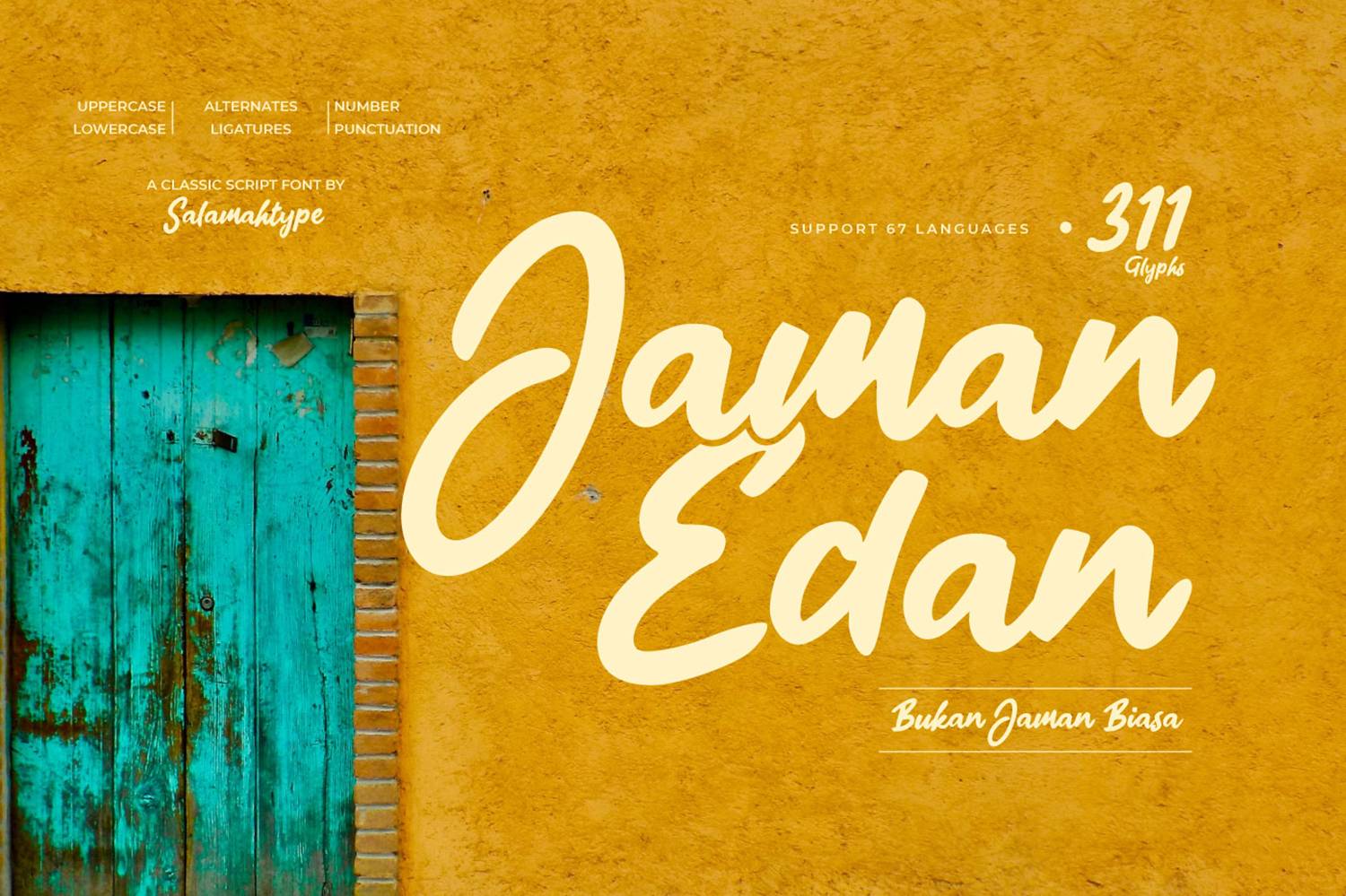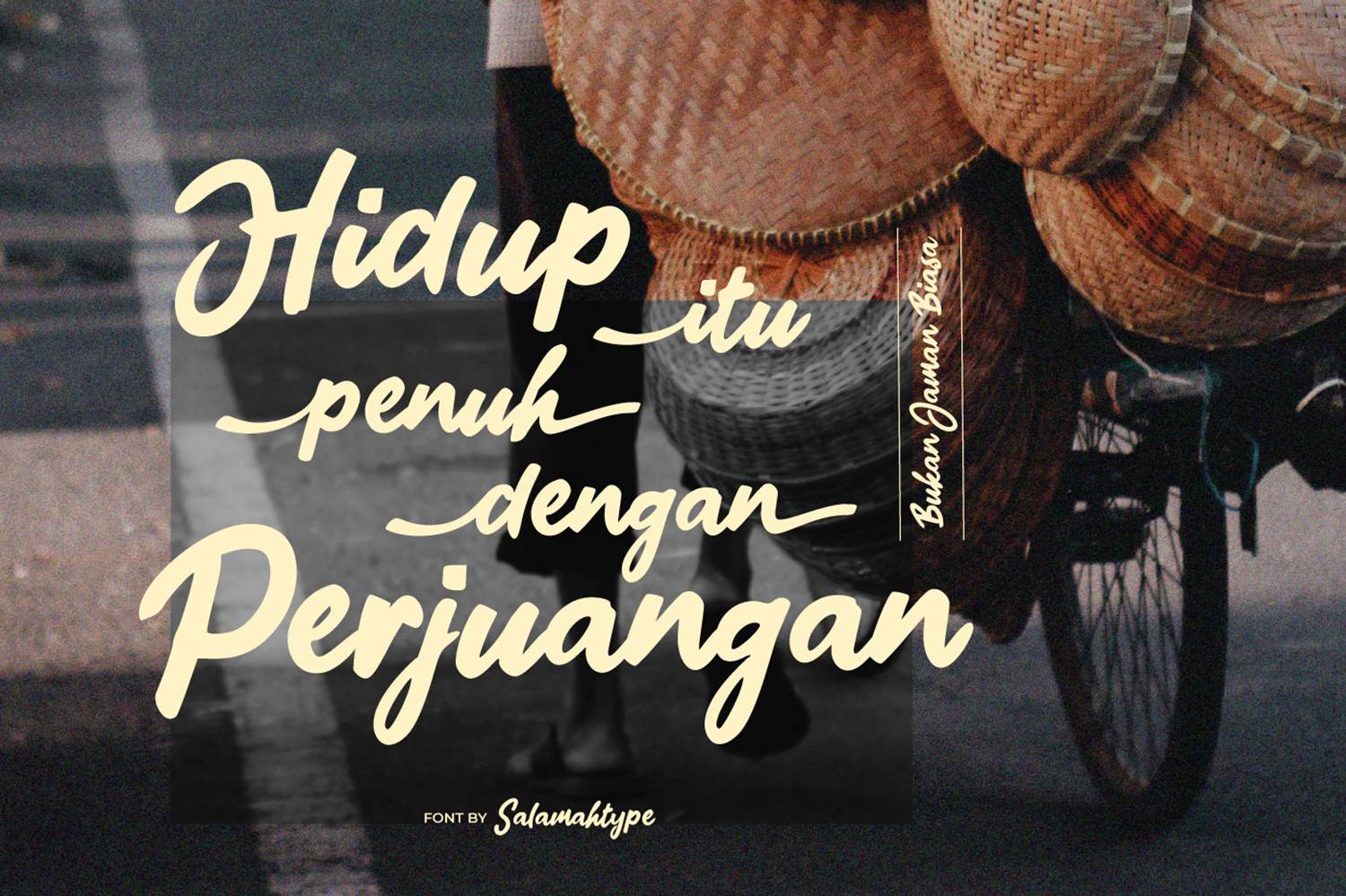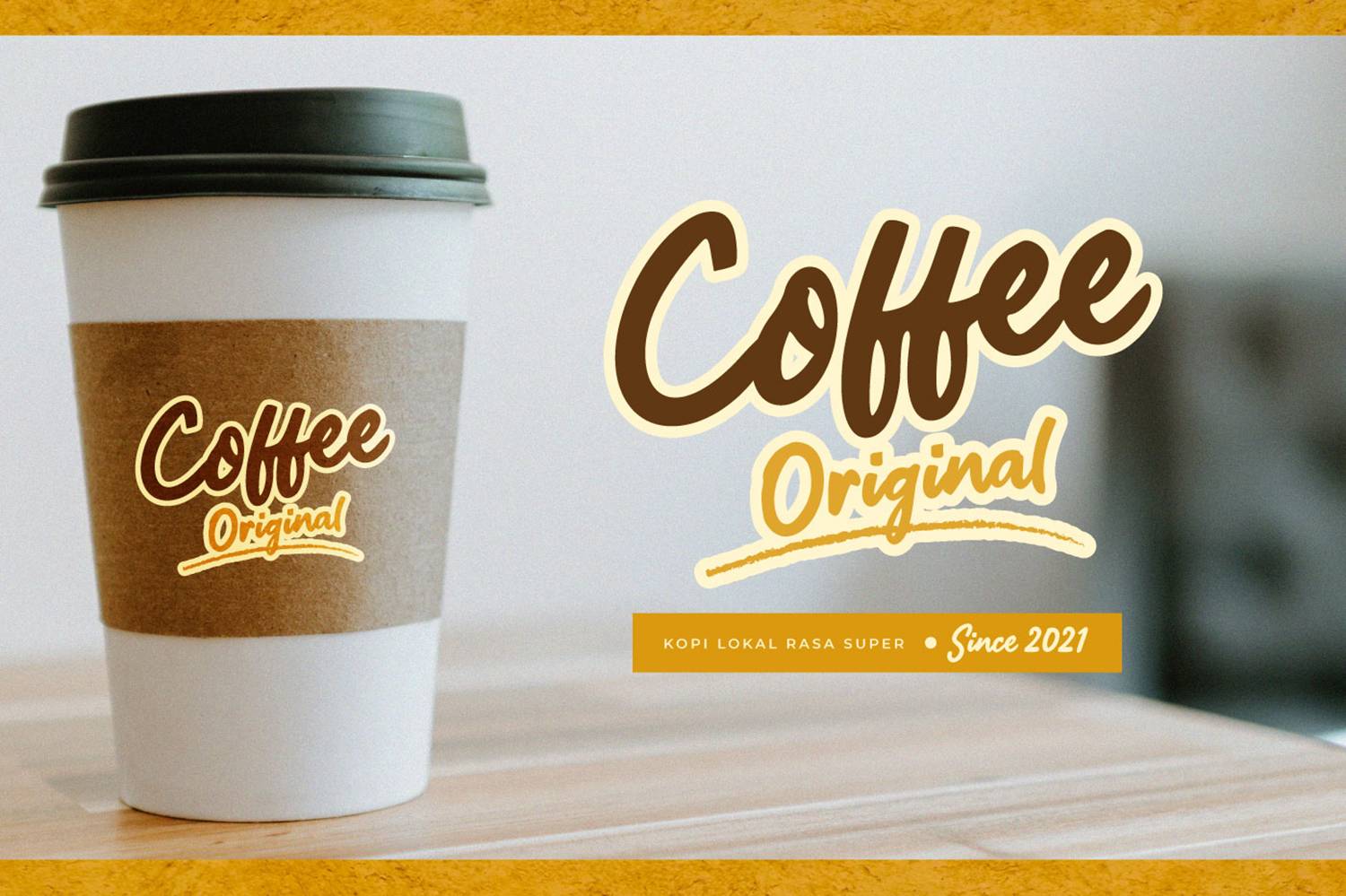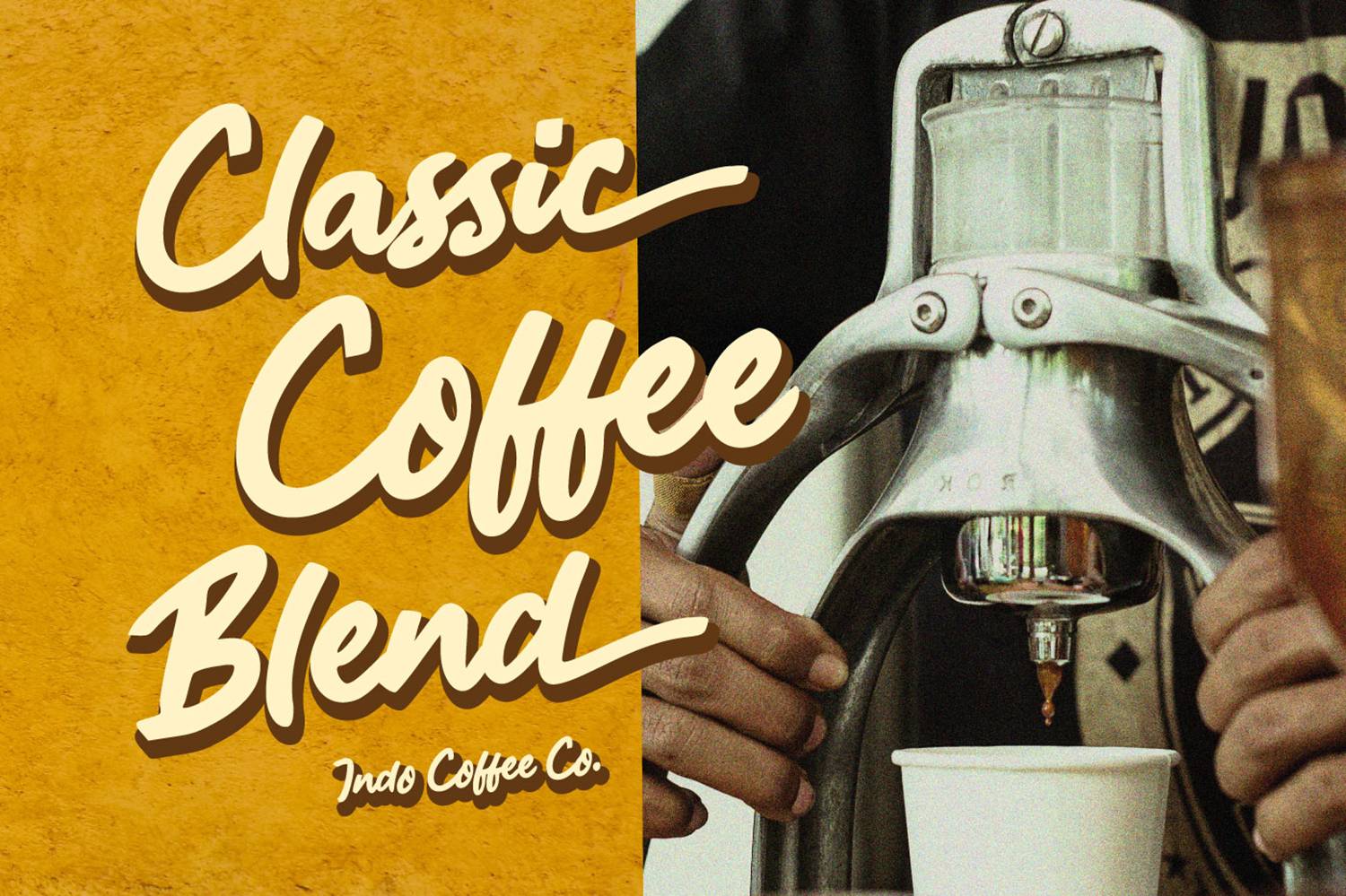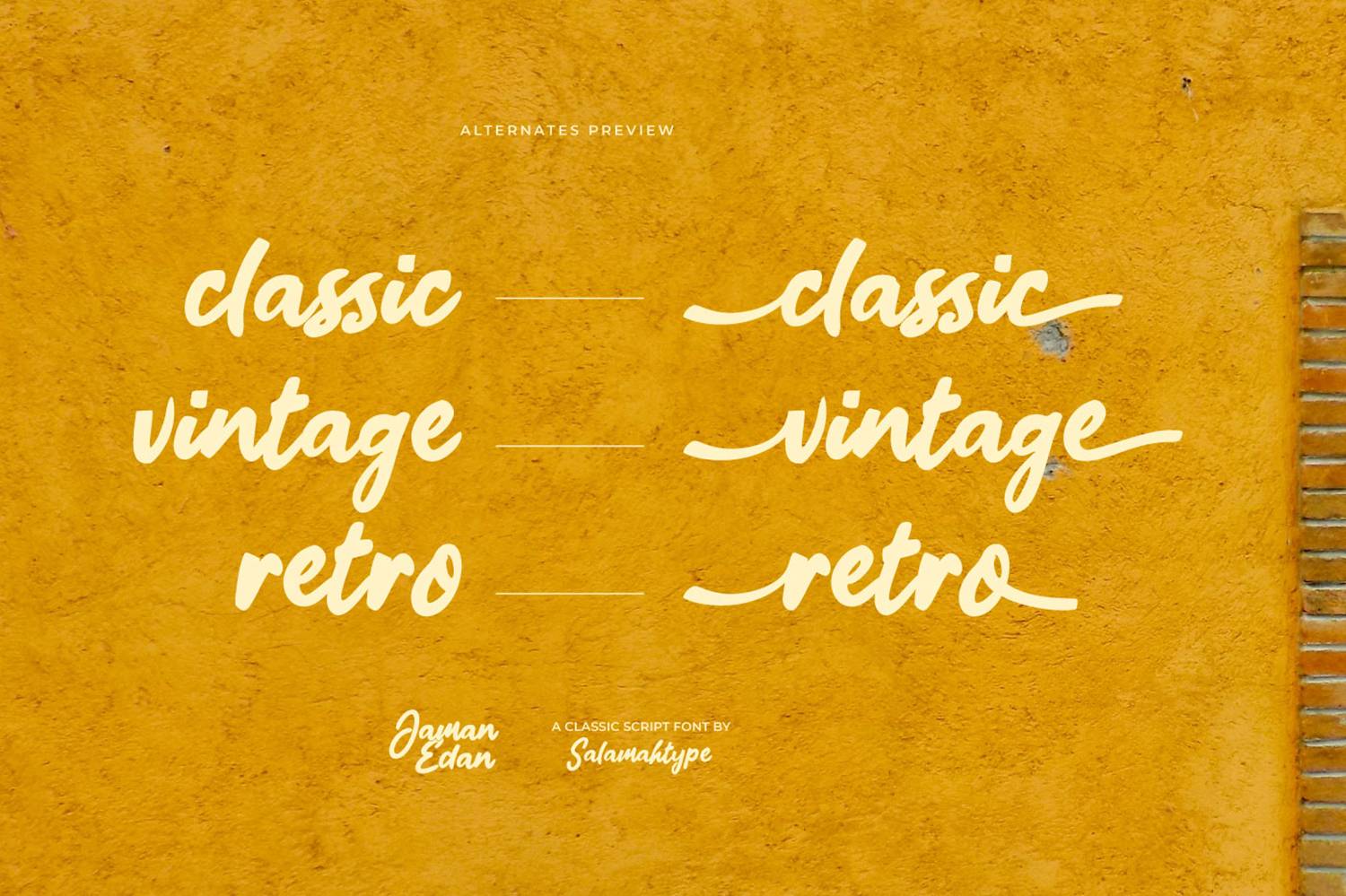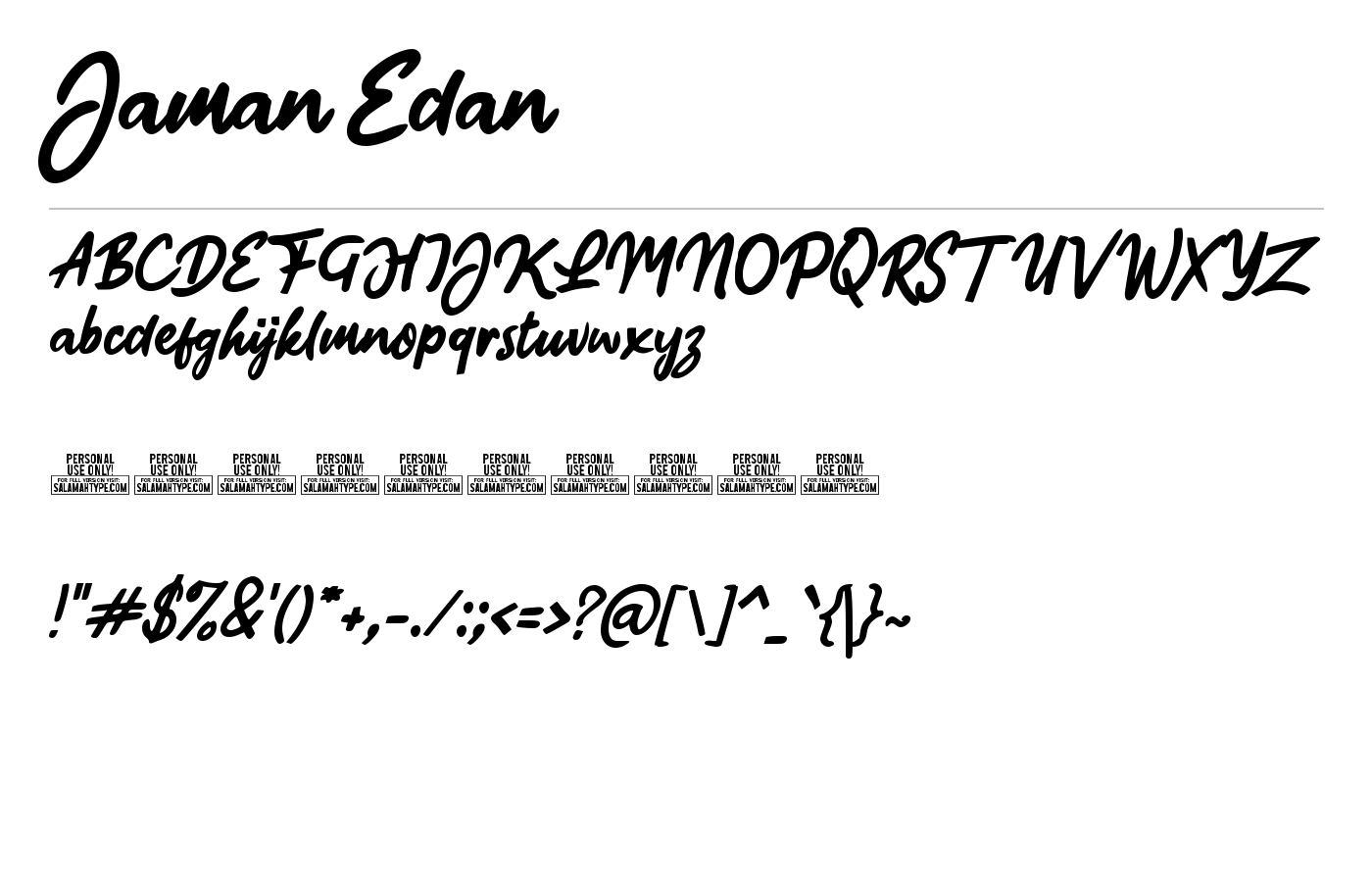
Jaman Edan is a lively script font with a bold, brushstroke style that feels both casual and energetic. Its slightly condensed letterforms and playful curves make it ideal for creative projects and branding that seeks a friendly, approachable vibe. This font works well for headlines, logos, and packaging where a personal, hand-crafted touch is desired.
Jaman Edan Font
About Jaman Edan Font